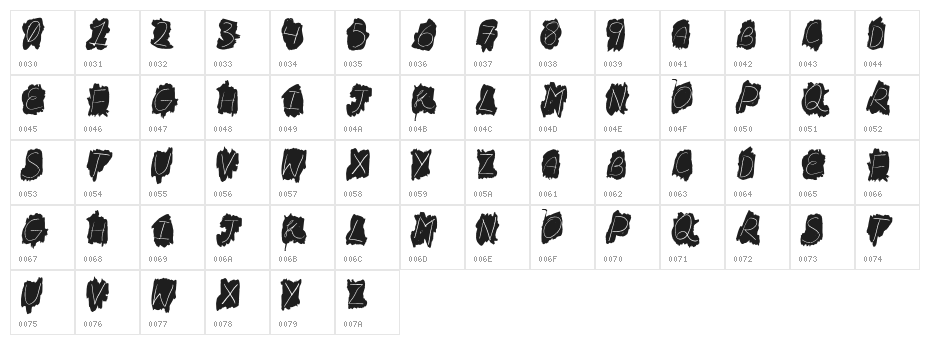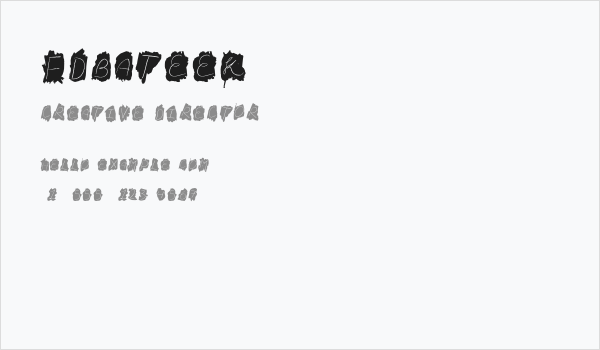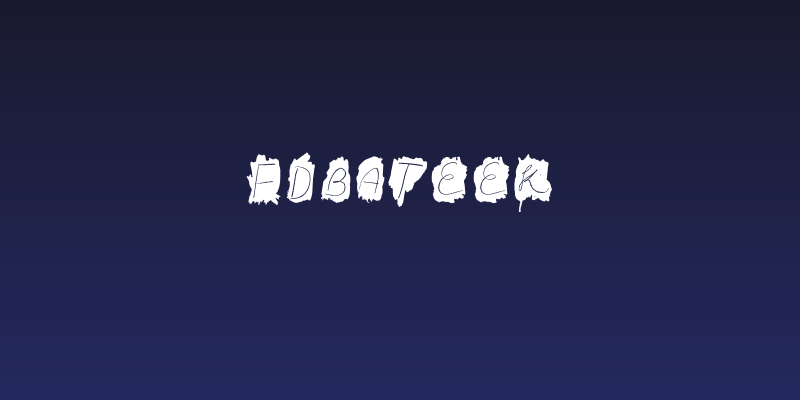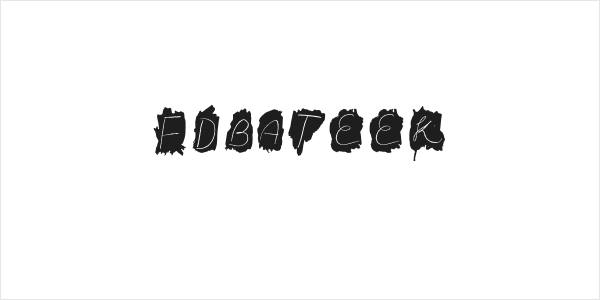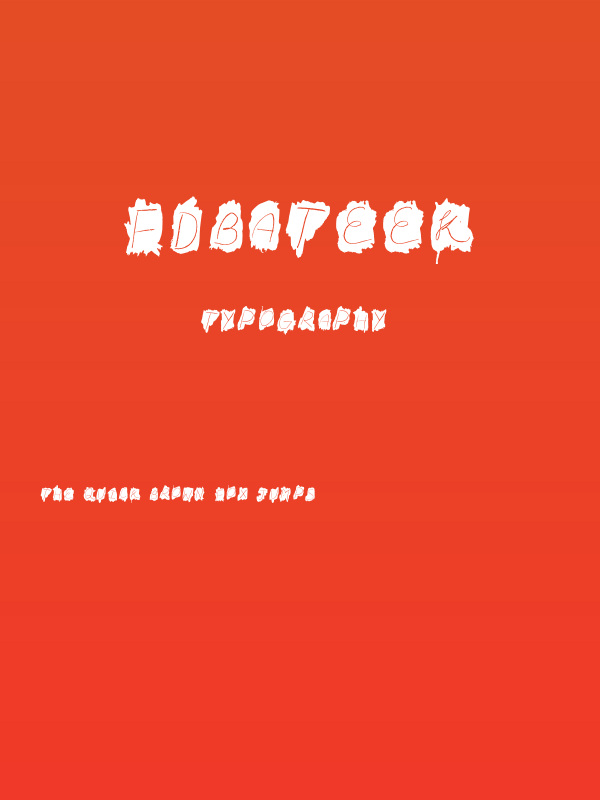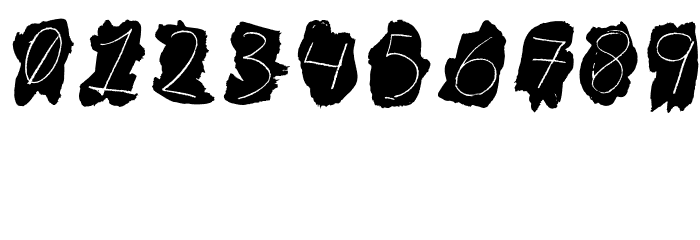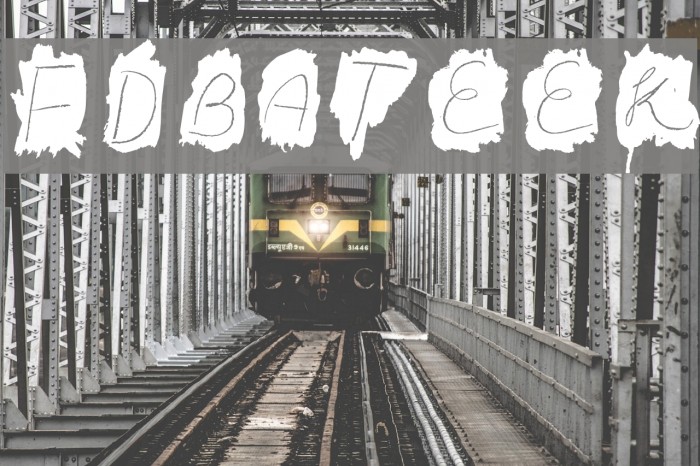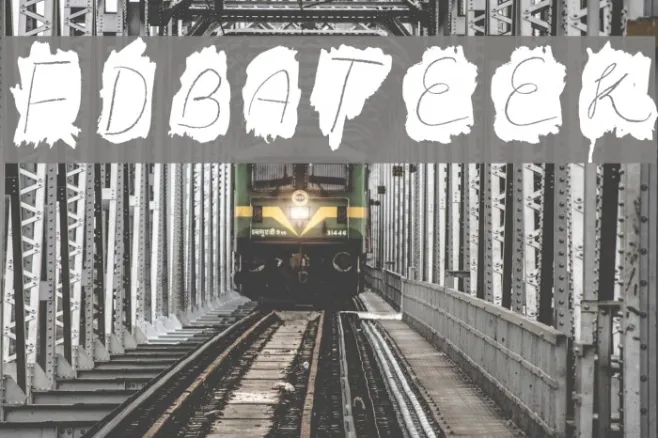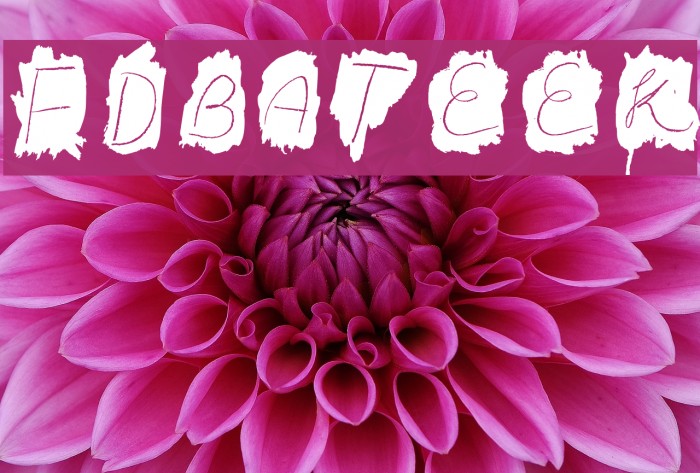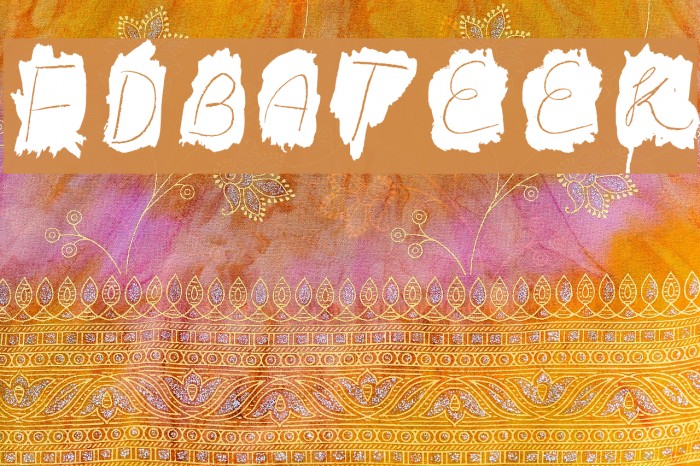
FDBateek Font
FDBateek Description
This font features a bold, graffiti-inspired style with a rugged and edgy appearance. The characters are heavily stylized with a brush-like texture, giving them a dynamic and energetic feel. Each letter is unique, with irregular edges and a sense of movement, reminiscent of street art. The font's design is striking and attention-grabbing, making it ideal for projects that require a strong visual impact. It combines a sense of rebellion with artistic flair, suitable for modern and urban-themed designs.
| Overall Style | Modern, Urban, Edgy |
| Use Case | Logos, Posters, Album covers, Branding |
| Proposed Projects | Perfect for street art designs, urban-themed posters, music album covers, and edgy branding projects. |